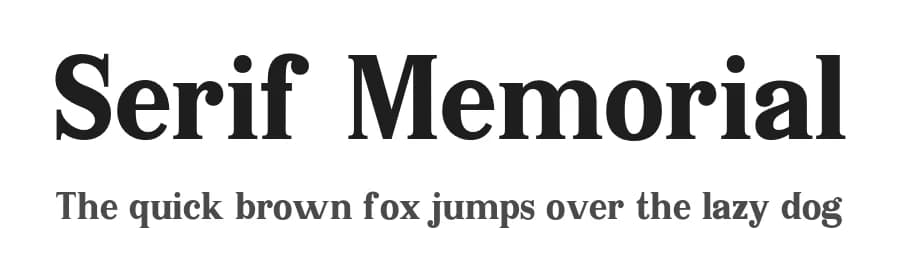
About Serif Memorial Font
Serif Memorial ships with 4 OpenType features you can switch on in apps that support them (Illustrator, InDesign, Affinity, Figma, CSS font-feature-settings).
- Small capitals
Serif Memorial supports 287 languages.
Serif Memorial Font is a versatile serif font that works for both headings and body text. Pair it with a contrasting sans-serif or slab serif font to add visual interest and a clear distinction between titles and body copy.
Serif Memorial Font